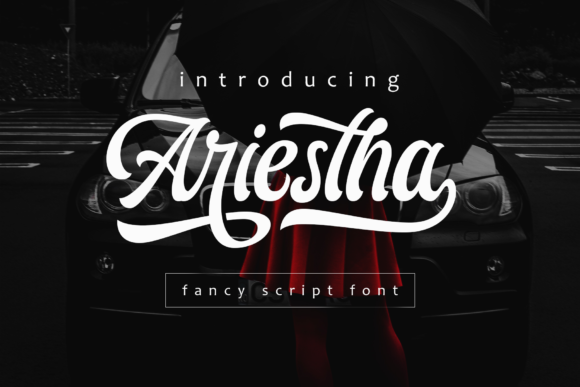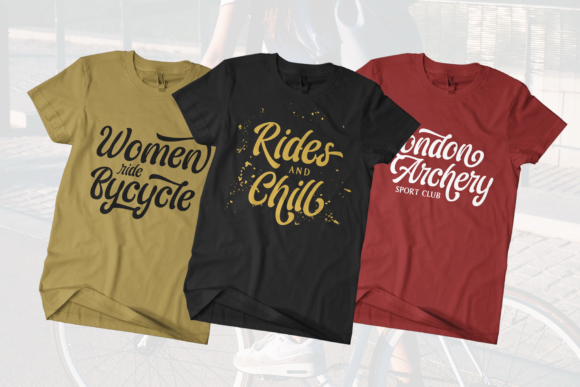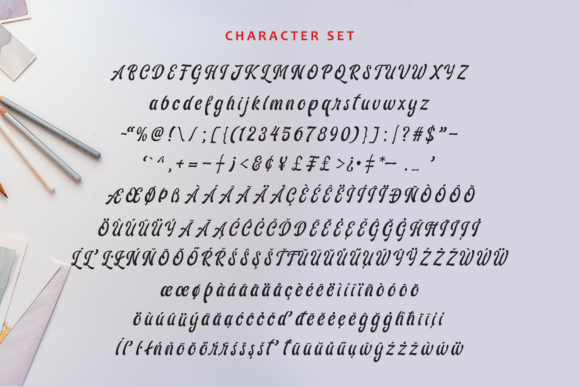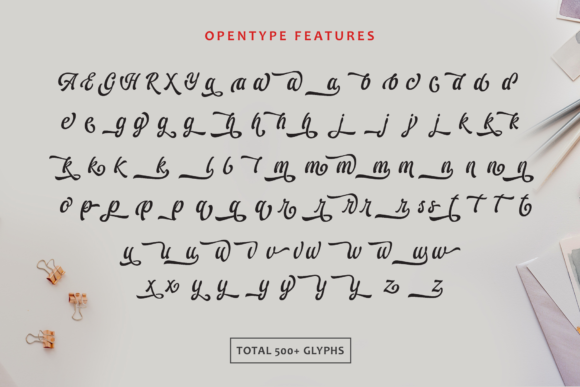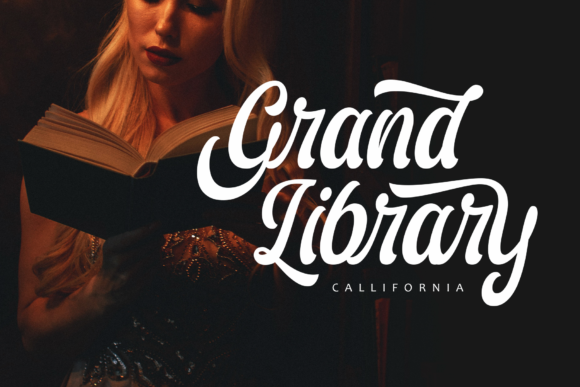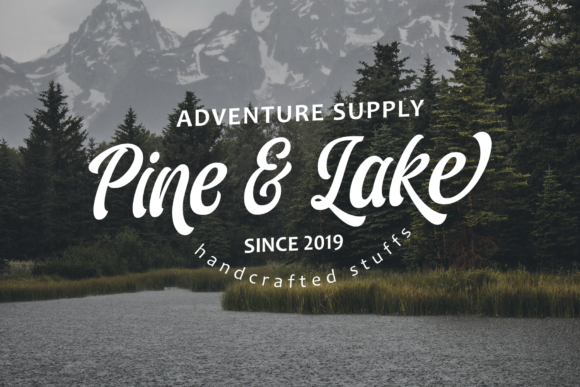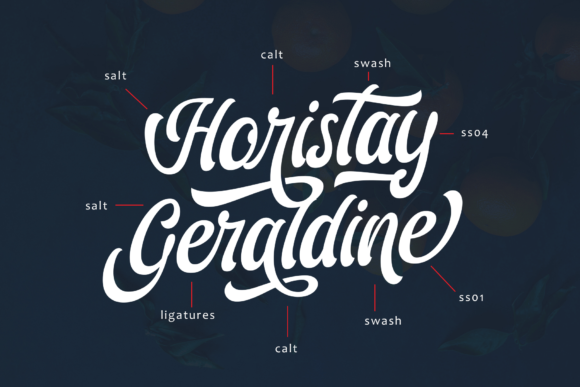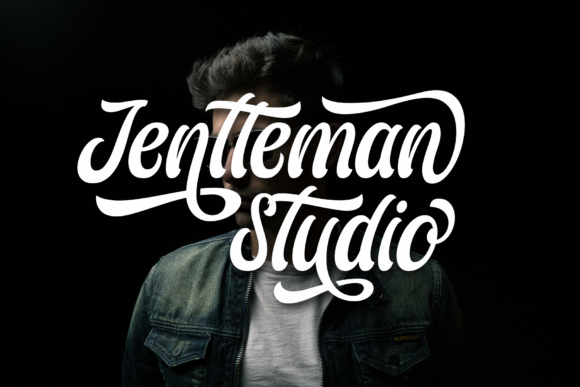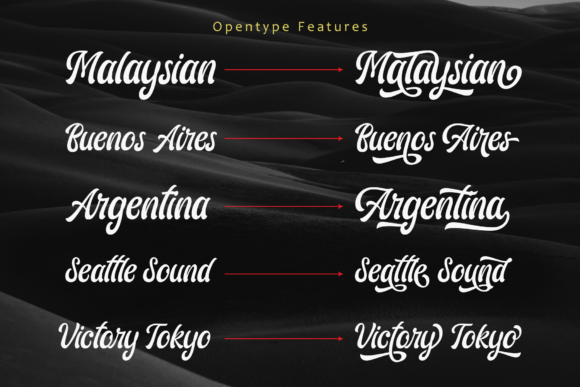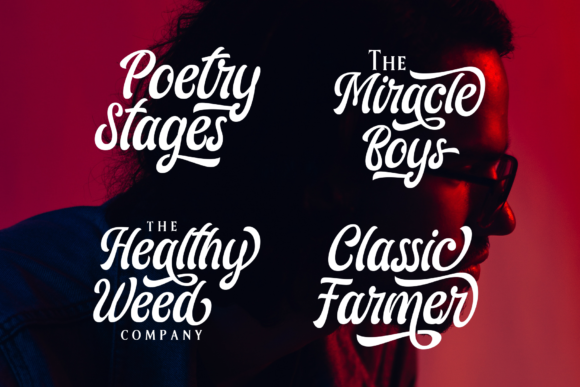
Ariestha Script Font
About Ariestha Script Font
Ariestha is a one-of-a-kind script with a beautiful feel. Get inspired by its cool vibe, and turn any design idea into a standout!